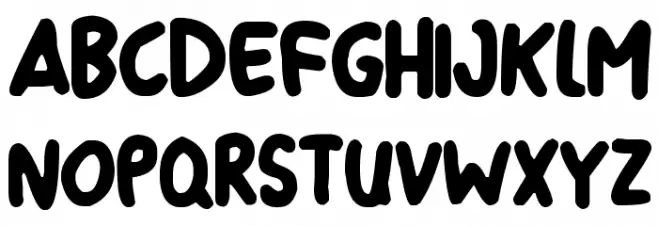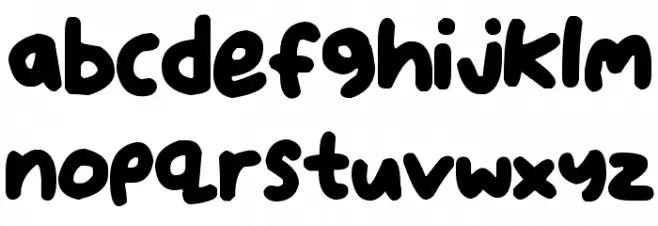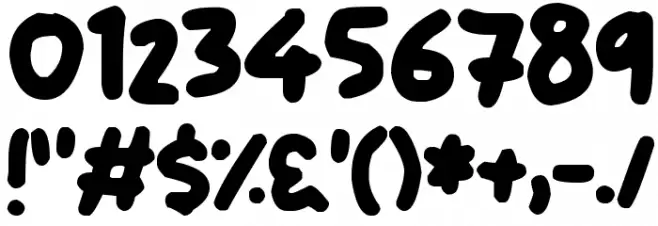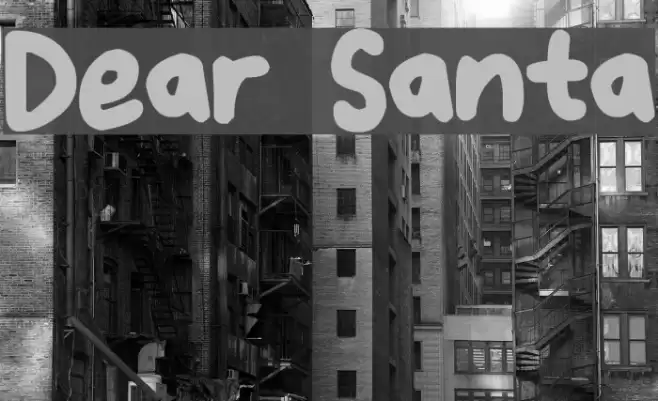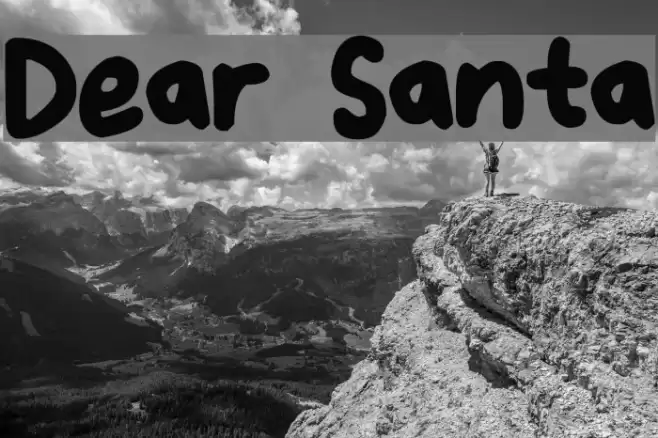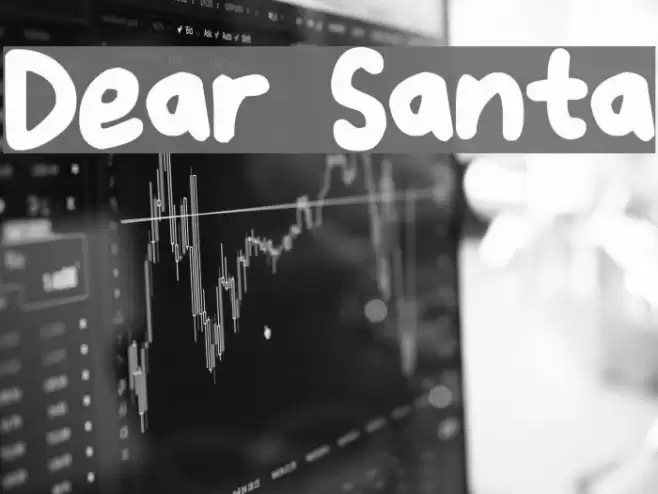
Dear Santa
This playful and bold font features a handwritten style with rounded edges and a casual, friendly appearance. The characters are thick and have a consistent weight throughout, giving them a strong presence on the page. The letters are slightly irregular, adding to the whimsical and informal feel. The spacing between characters is tight, which enhances the compact and cohesive look of the text. This font is ideal for projects that require a fun and approachable aesthetic, such as children's books, greeting cards, or playful branding materials. Its unique style makes it stand out, while still being legible and easy to read.
A playful, bold handwritten font with rounded edges and a friendly appearance.
- Proposed Projects: Children's books, greeting cards, playful branding, informal invitations.
- Character Spacing: Tight
- Overall Style: Playful